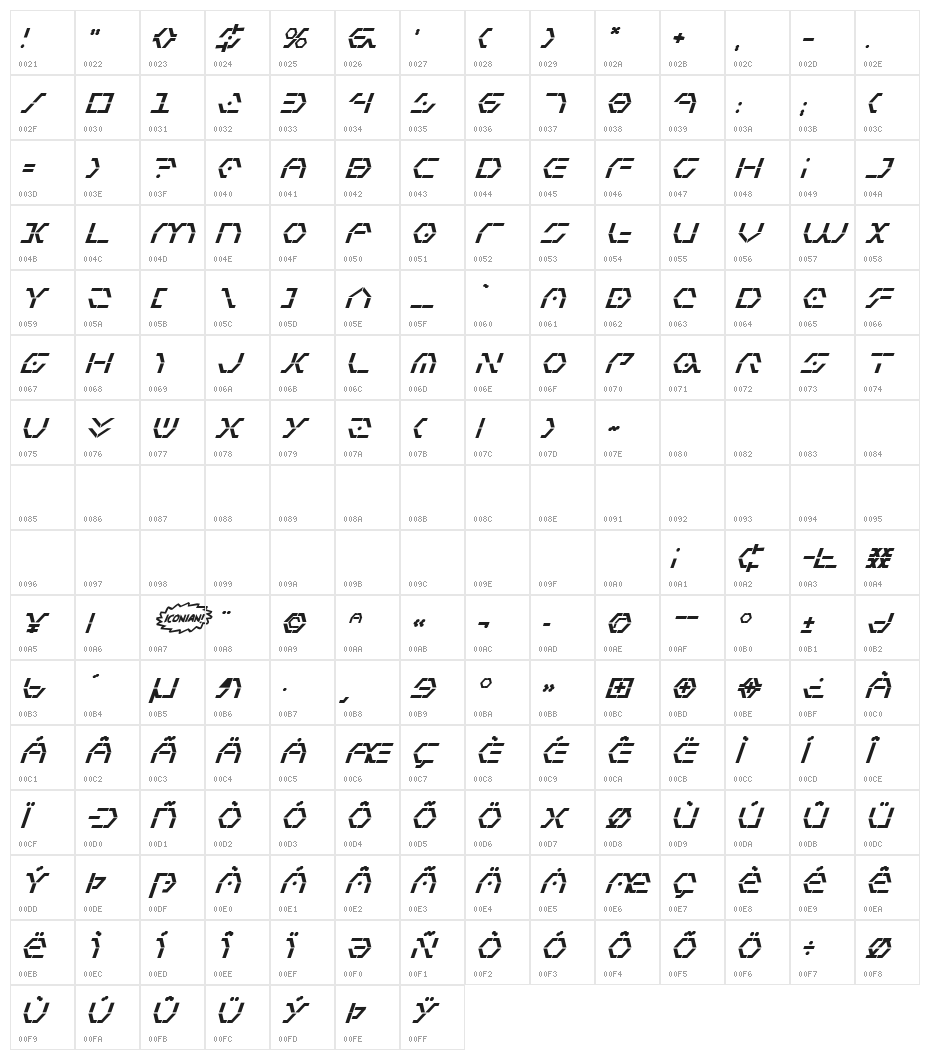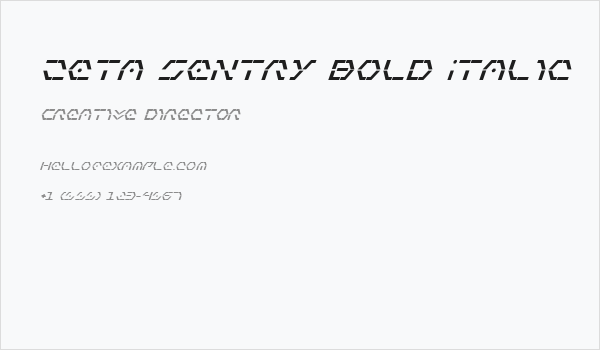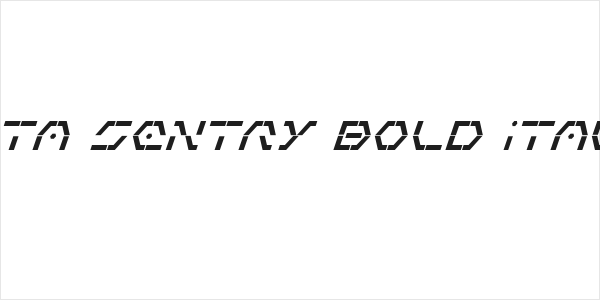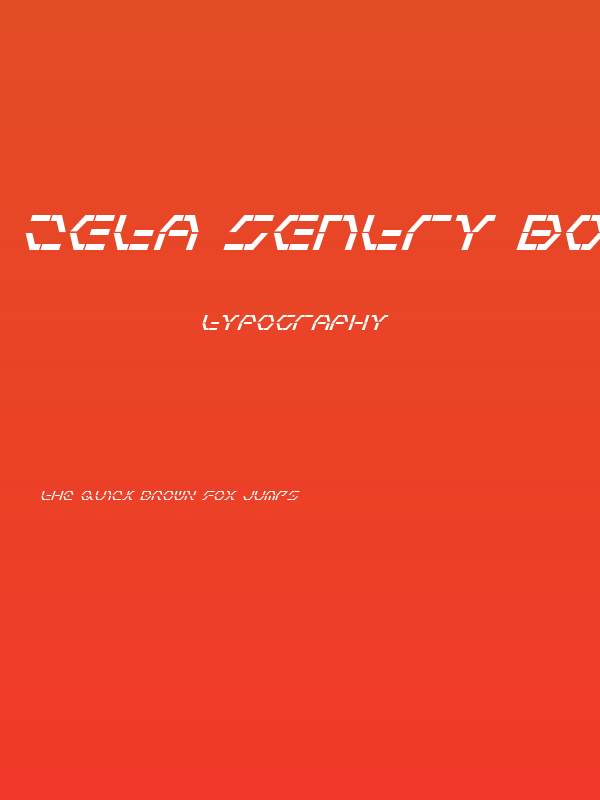
Zeta Sentry Bold Italic Font
Zeta Sentry Bold Italic Description
This font features a futuristic and angular design, characterized by its bold and italicized style. The letters are composed of sharp, geometric shapes that give it a digital, high-tech appearance. The strokes are consistent in thickness, providing a uniform look across all characters. The font maintains a dynamic and energetic feel, suitable for modern and innovative themes. Its distinct style makes it stand out, with each character having a unique, almost stencil-like cut that adds to its visual interest.
| Proposed Projects | Ideal for technology branding, sci-fi movie posters, video game titles, and digital media projects. |